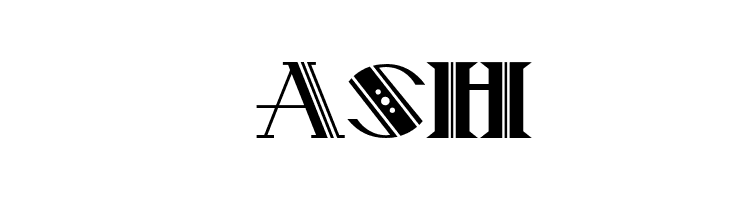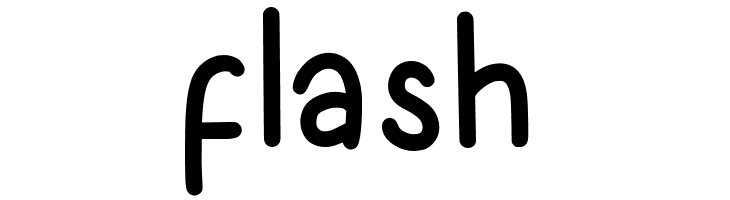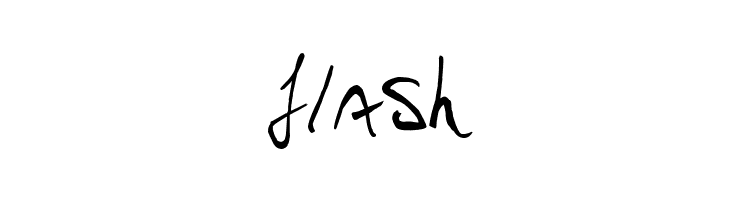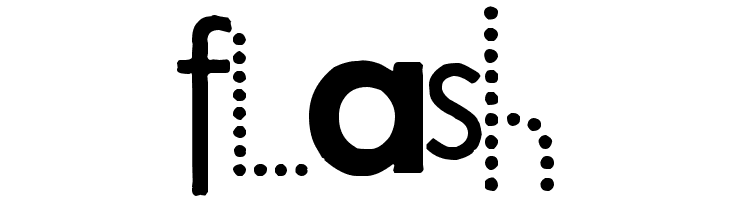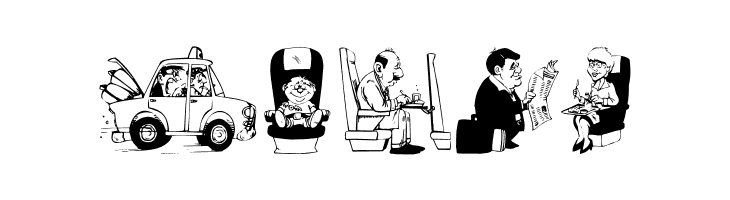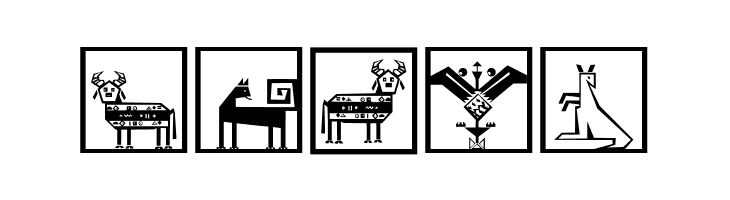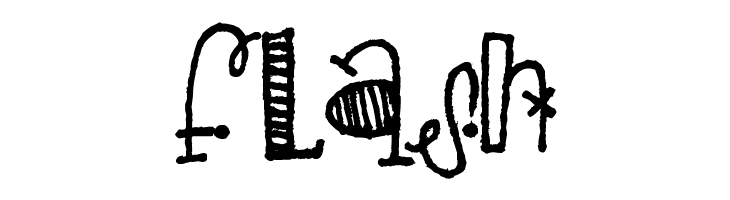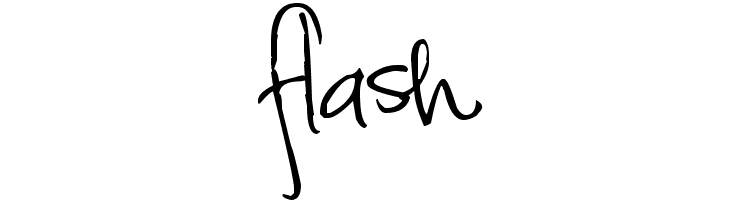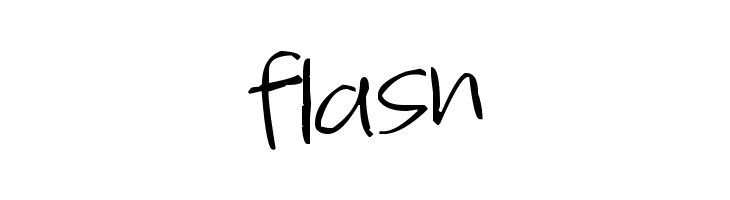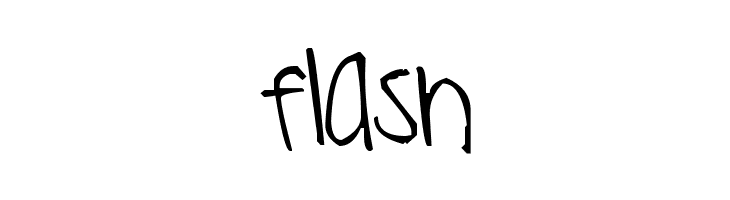
• ParmaInitialenMK
An ornate and decorative font with high contrast and intricate design.
• PAss the CheX
A playful font combining solid and dotted styles for a dynamic look.
• PassengersFun
Cartoon dingbat font with travel and passenger-themed illustrations.
• pastelfont
• Pastiche NF
A vibrant, eclectic display typeface with Art Deco and vintage influences.
• PasticheNF
A vibrant and eclectic display font with unique decorative elements in each character.
• Pathfinder
• PatternaliaMK
A decorative and whimsical font with characters resembling unique animals.
• Pattia
A playful, hand-drawn font with rounded, friendly characters.
• Paul PC
A bold, expressive handwritten font with dynamic strokes.
• Payzant Pen NF
A decorative serif font with a blend of geometric and handwritten styles.
• PayzantPenNF
A sophisticated font with a blend of classic and modern elements, featuring elegant curves and playful details.
• PC-GothicScroll
• Pea Alesa
A playful, handwritten font with a casual and friendly vibe.
• Pea Alisha
A playful, casual handwritten font with a lively and dynamic appearance.
• Pea Ally
A playful, casual handwritten font with uneven strokes and a lively appearance.
• Pea Ambrielle
A whimsical, hand-drawn font with playful, decorative elements.
• Pea Amy
A playful, casual handwritten font with uneven strokes and a friendly vibe.
• Pea Amy G
A playful, casual handwritten font with an organic, lively style.
• Pea Amy Jo Jo
A playful, hand-drawn font with tall, narrow letters and a whimsical charm.
• Pea Amy*Rica
A playful, handwritten font with irregular strokes and a casual vibe.
• Pea Amy*Rica Script
A casual, handwritten script font with a playful and elegant touch.